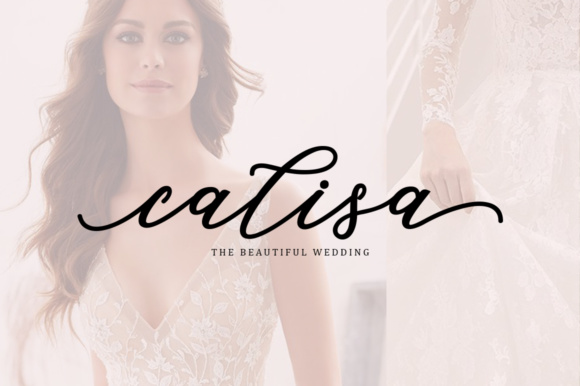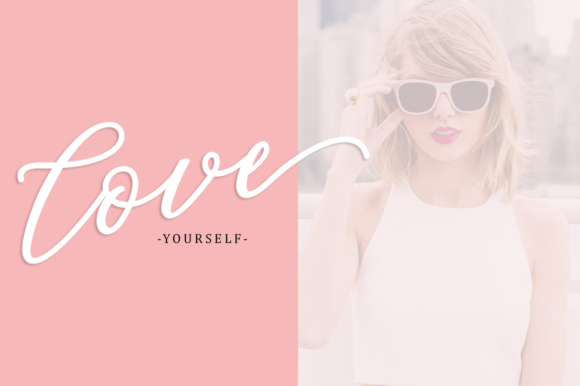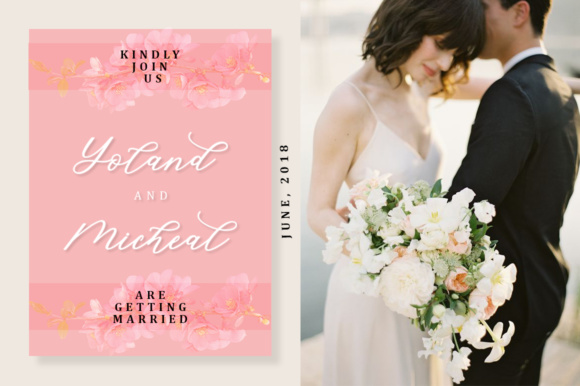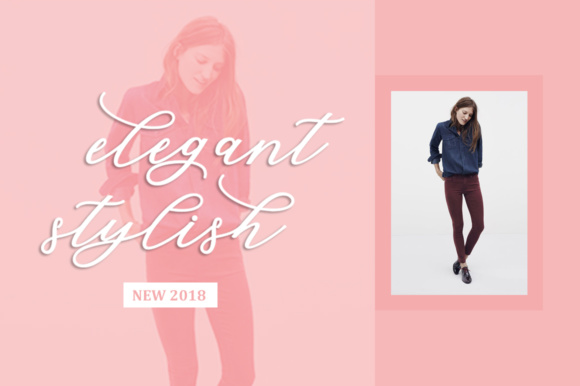
About Cadosa Font
Cadosa Script is a modern calligraphy font. Cadosa is beautiful for logotype, website headers, fashion designs,wedding cards and much more. Bellisia comes with an elegant style.